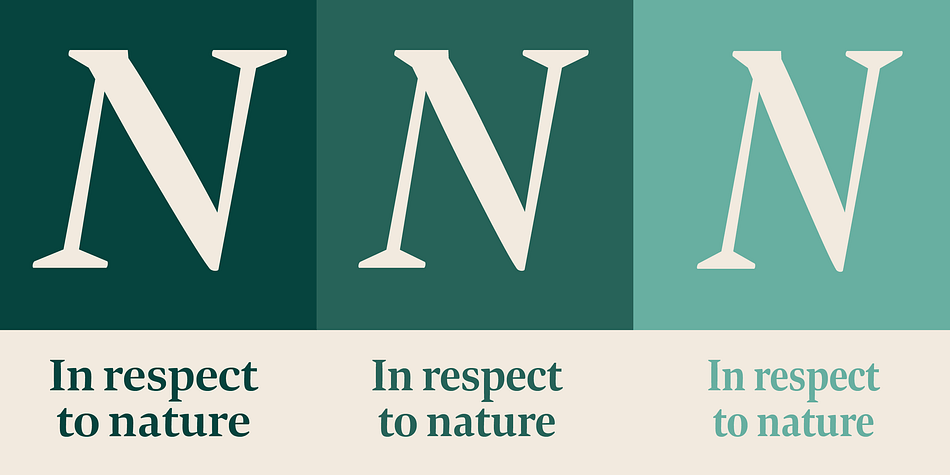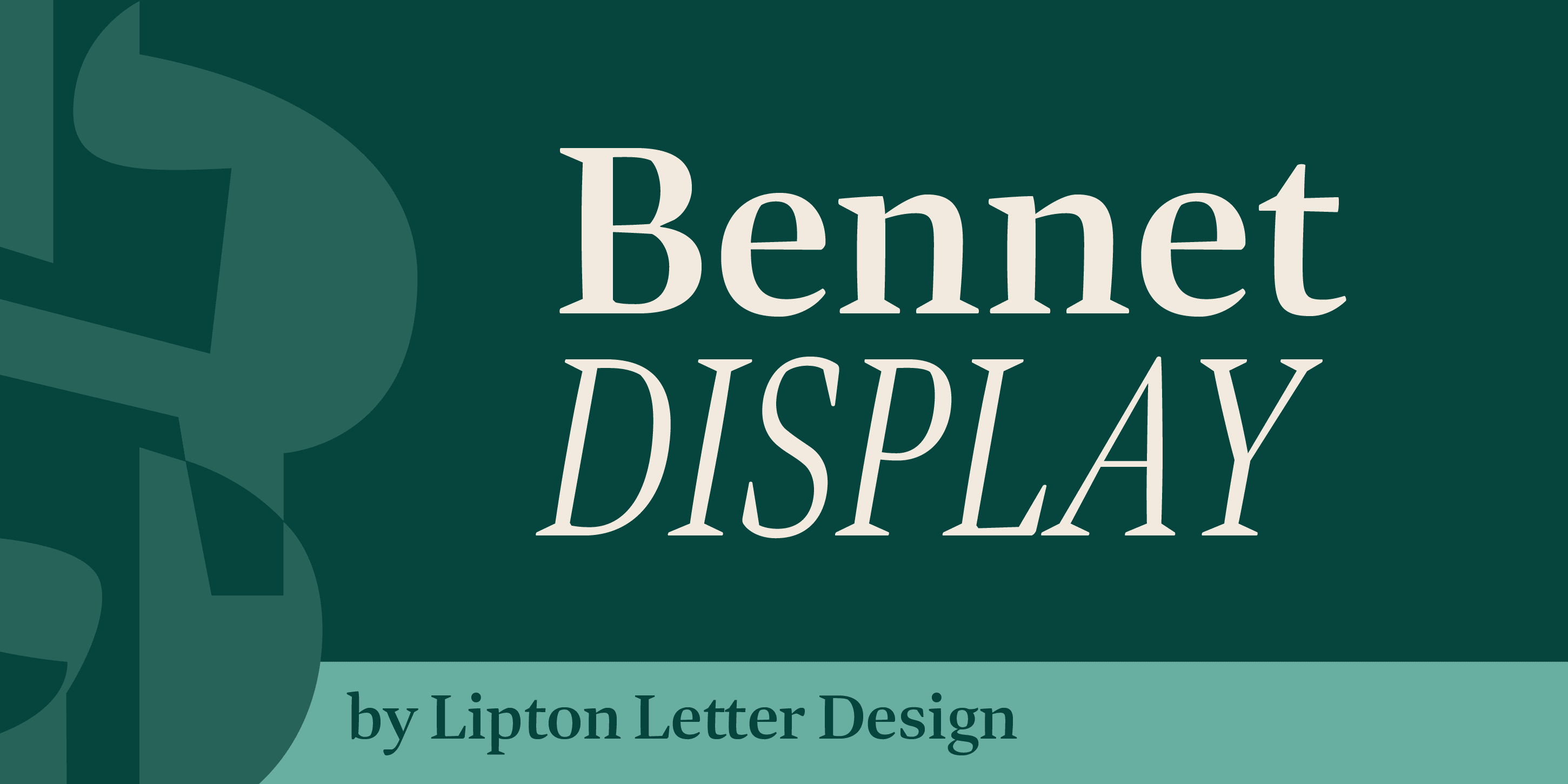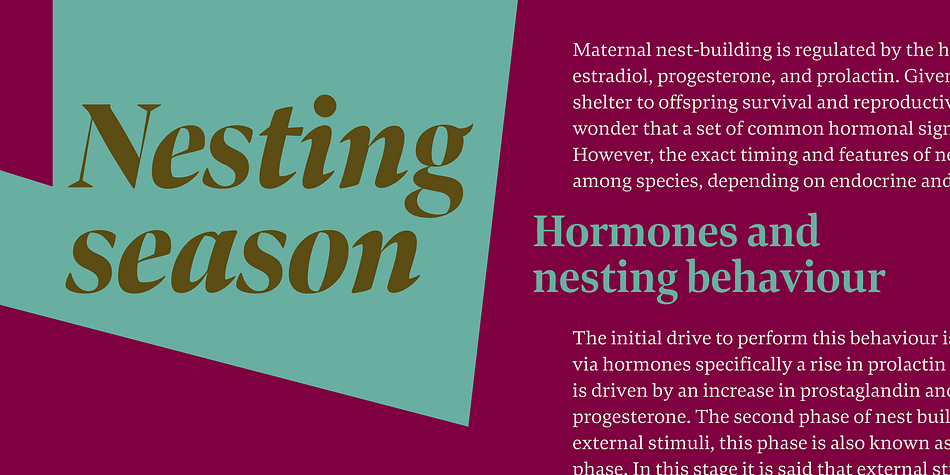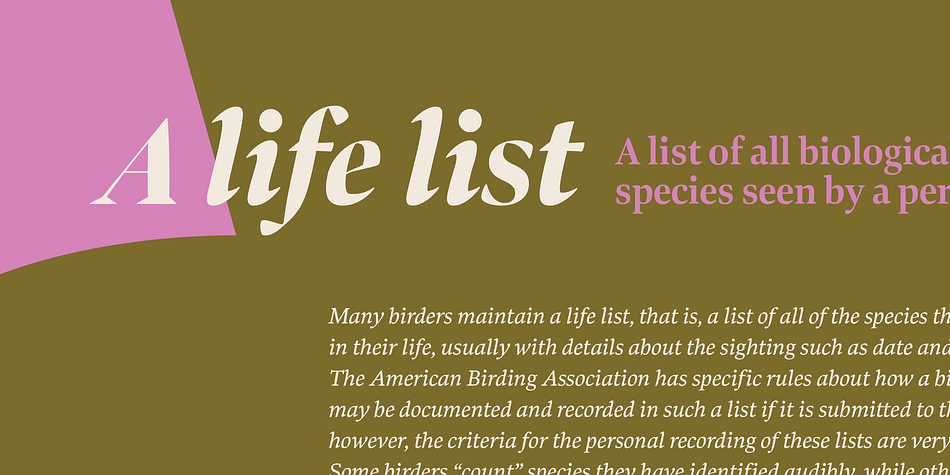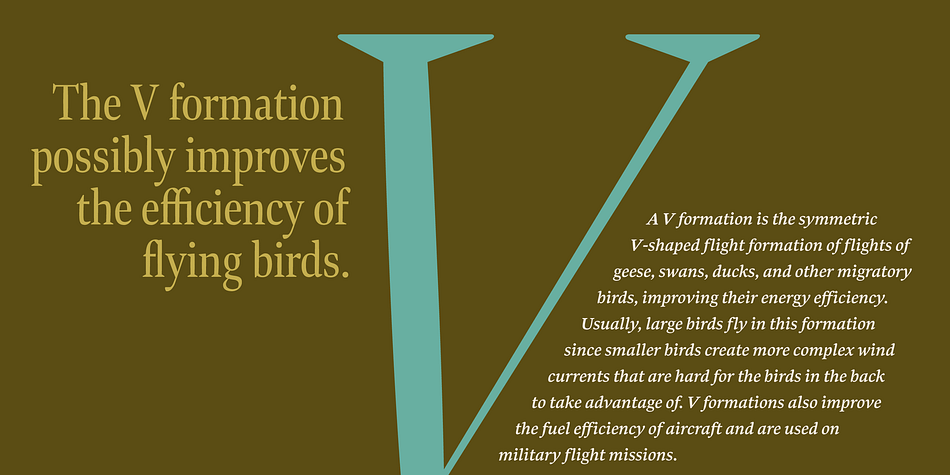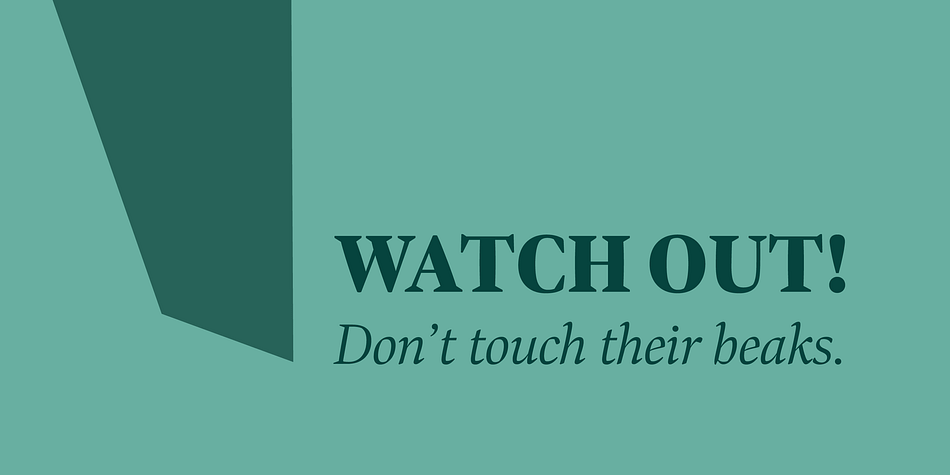
Bennet Display
Designed by Richard Lipton, Bennet Display is a display serif font family. This typeface has thirty-six styles and was published by Lipton Letter Design.
Bennet, Richard Lipton’s spirited serif superfamily, was inspired by Moth Design’s logotype and stationery system for the North Bennet Street School in Boston. Initially modest in concept, Bennet grew to an expansive suite of 96 fonts tuned for editorial use. The three widths of Bennet’s Display and Banner sizes—Regular, Condensed, and Extra Condensed—are ideal for precise fitting of newspaper and magazine headlines. Lipton developed graded text styles for the series, offering users precise variations to help compensate for varying degrees of ink spread on different types of paper stock during the printing process. For example, because of ink absorption, the lightest grade—Bennet Text One—printed on low-quality newsprint stock will have the same gray value as the darkest grade—Bennet Text Four—on superior coated paper. (Bennet Text Two is the default grade.) Bennet also provides for a stellar reading experience in digital media, its carefully considered details vibrant yet legible on-screen.